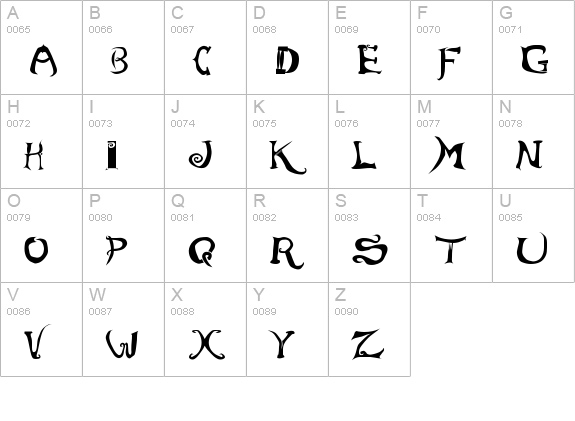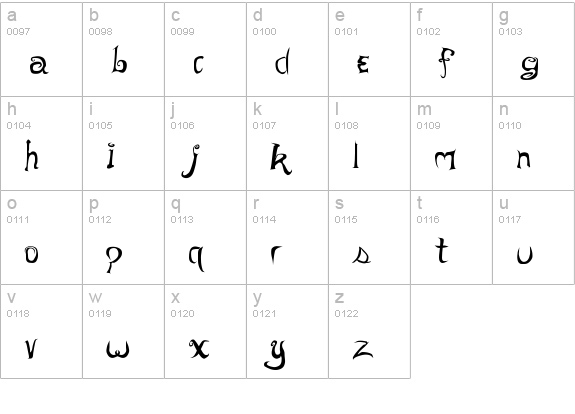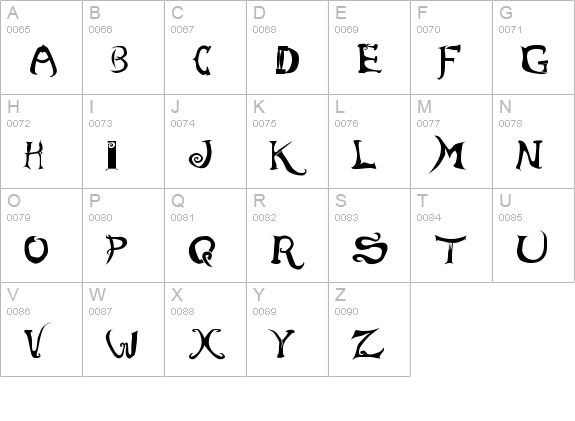
The Morevil font is a stunning display typeface that exudes a mysterious and edgy vibe. With its sharp, angular lines and unique design elements, Morevil is perfect for adding a touch of dark elegance to your projects. This font is ideal for branding, logo design, posters, and more. What's even better is that Morevil is available for free download at FontsMarket.com! Embrace the power of this captivating font and unleash your creativity without any cost. Download Morevil today and elevate your designs with its distinctive and alluring aesthetic.